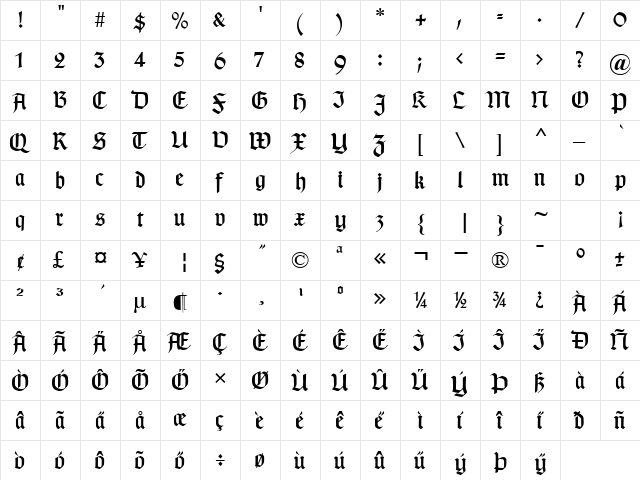
TypographerGotisch A UNZ1 Regular
| Designer | Dieter Steffmann |
Design Context for TypographerGotisch A UNZ1 Typeface
TypographerGotisch A UNZ1 takes a measured approach to typography — its balanced proportions and neutral character make it a reliable workhorse for both digital and print work.